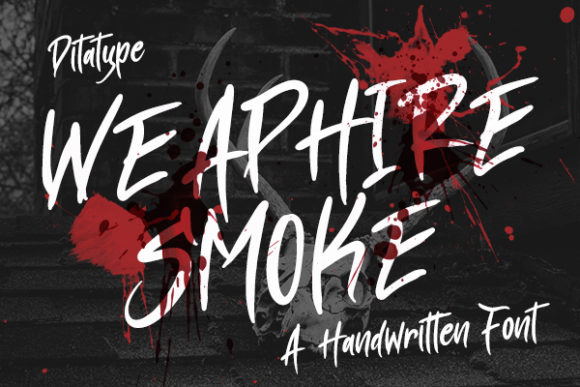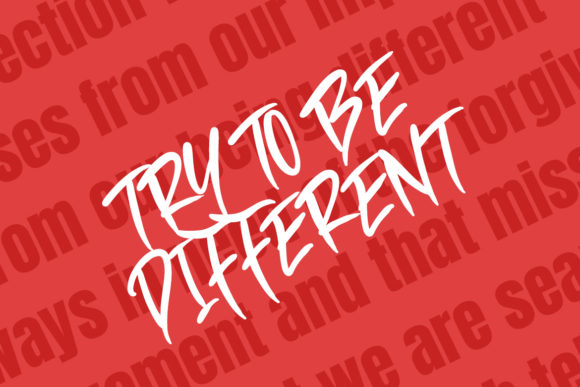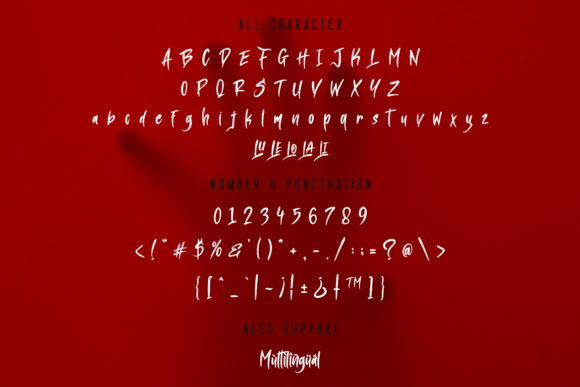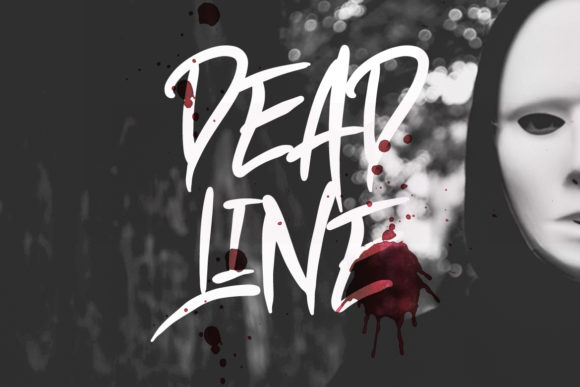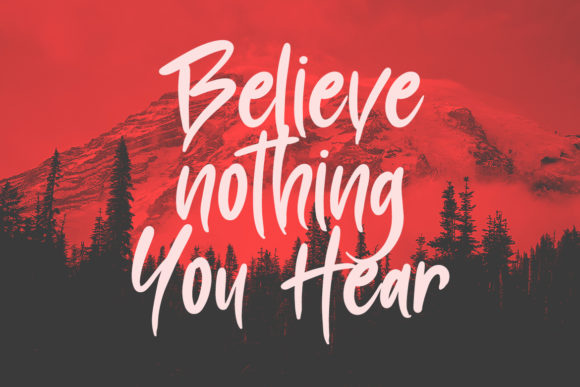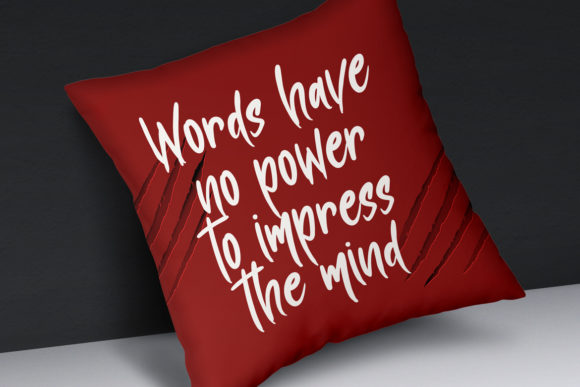
Weaphire Smoke Font
About Weaphire Smoke Font
Weaphire Smoke results out of a stunning pairing of a brush pen and pencil that makes it look incredibly endearing and authentic. Use this unique and handwritten font to bring any DIY project to life!